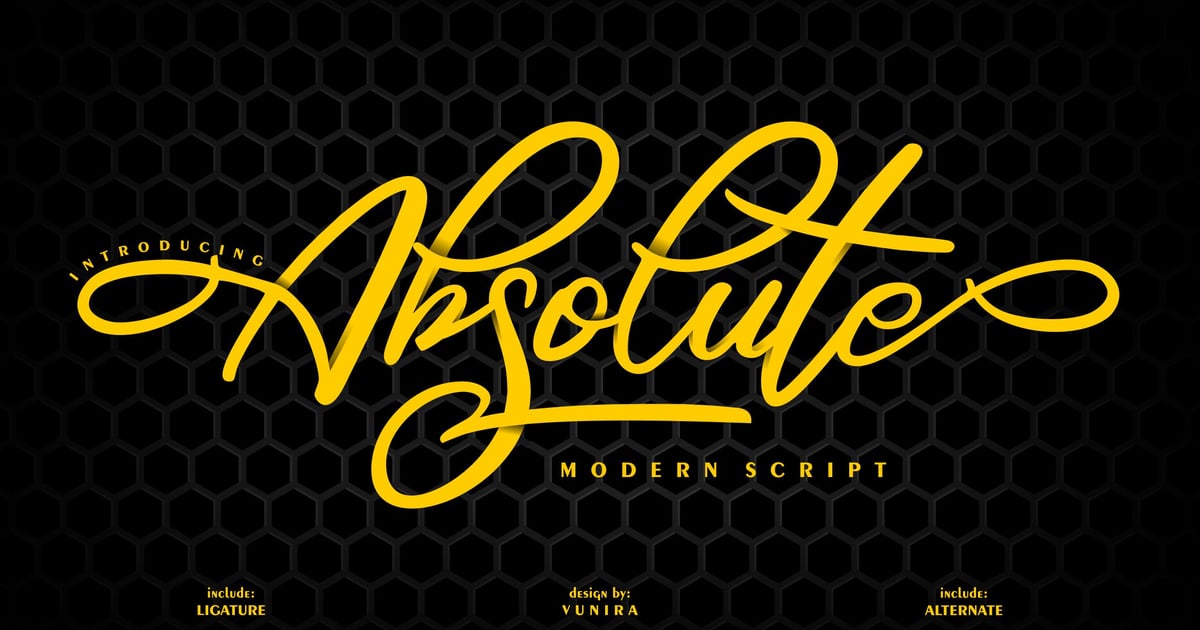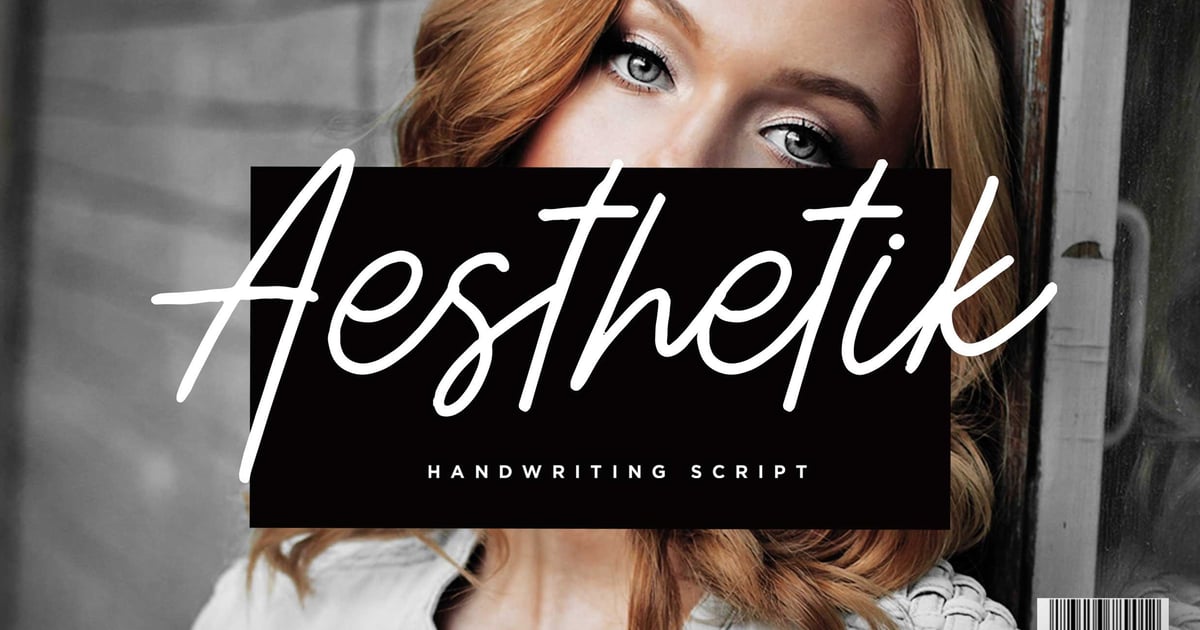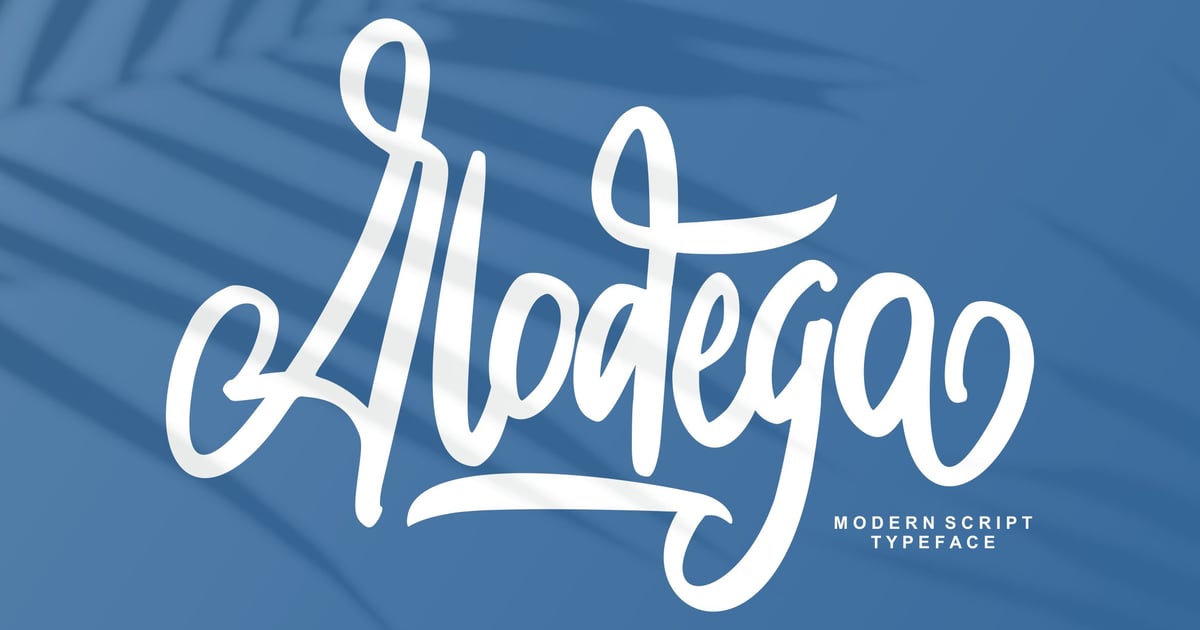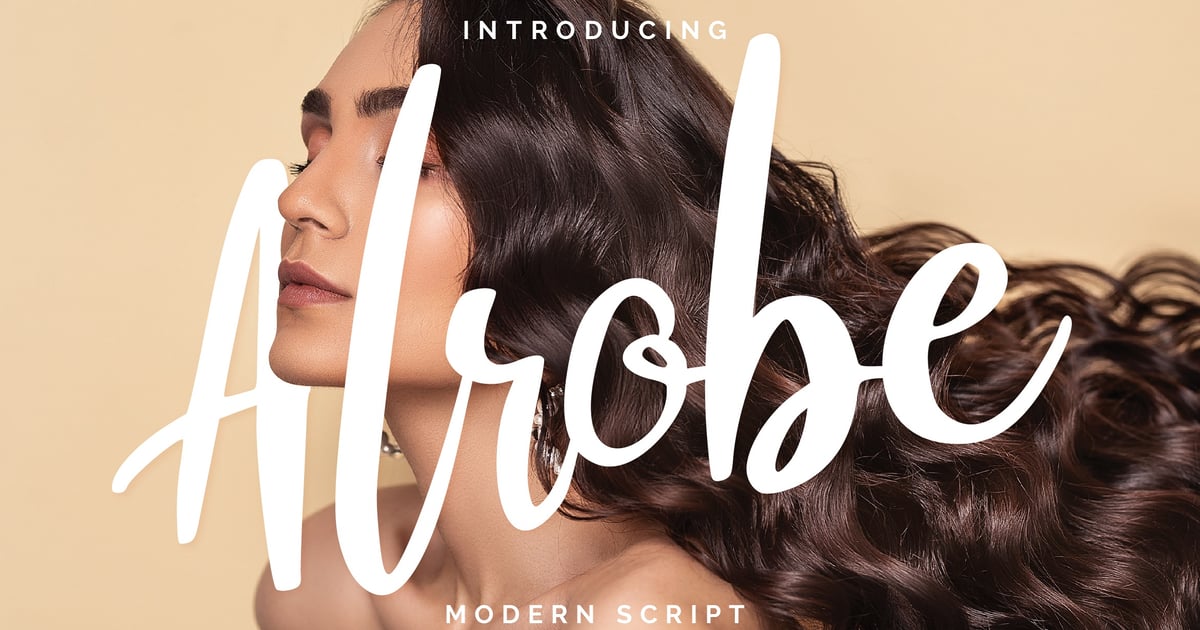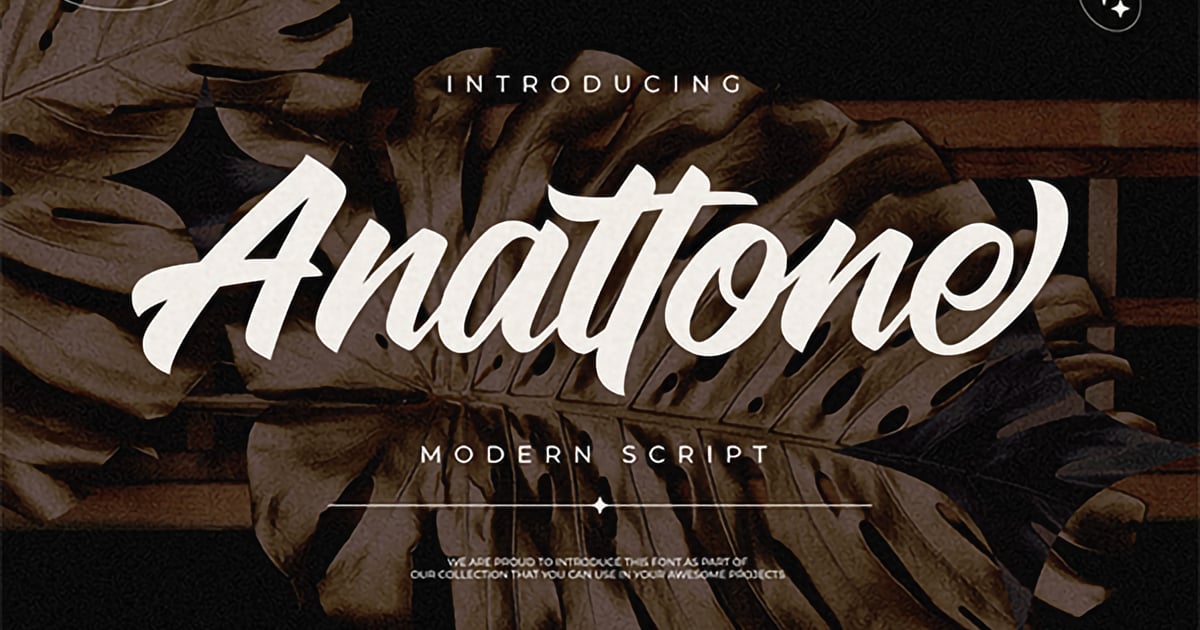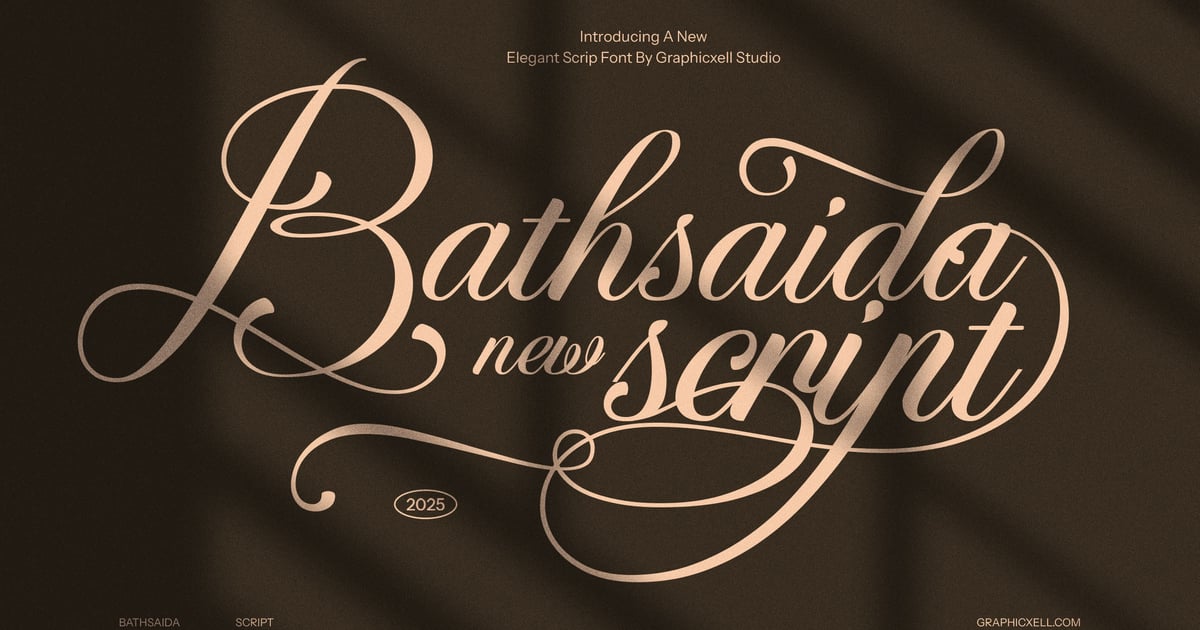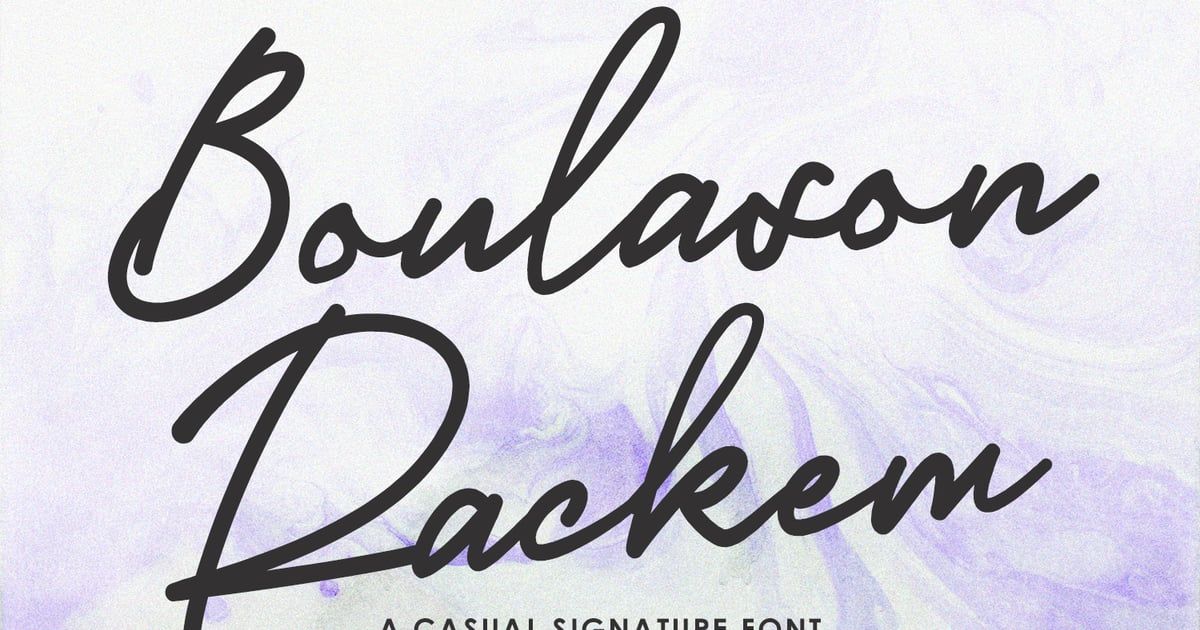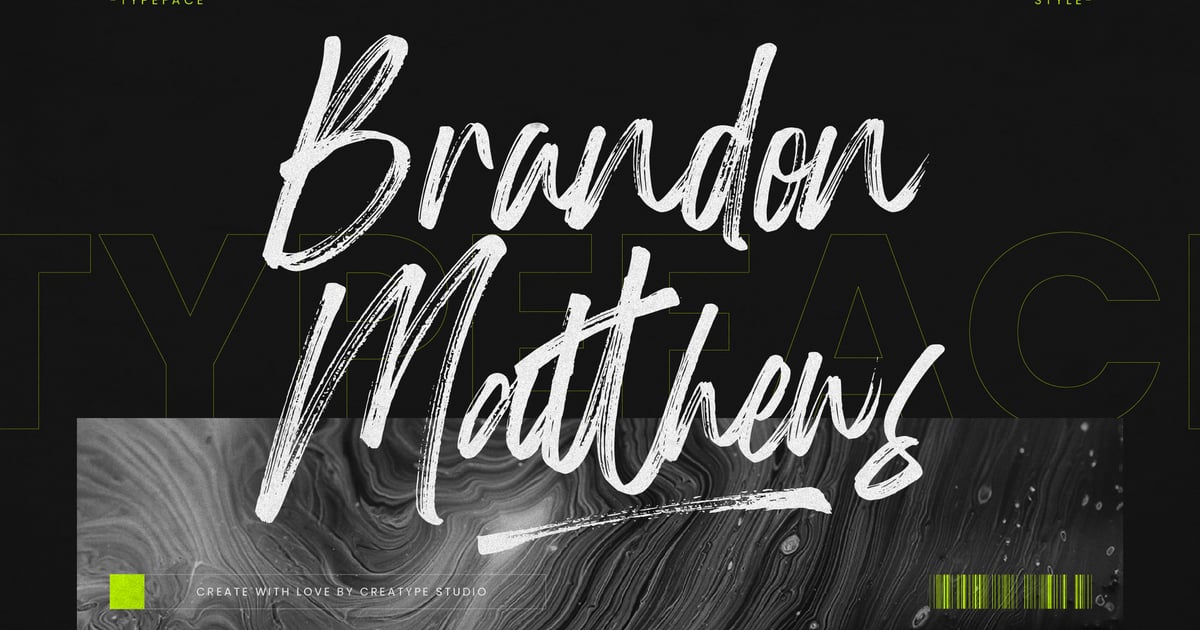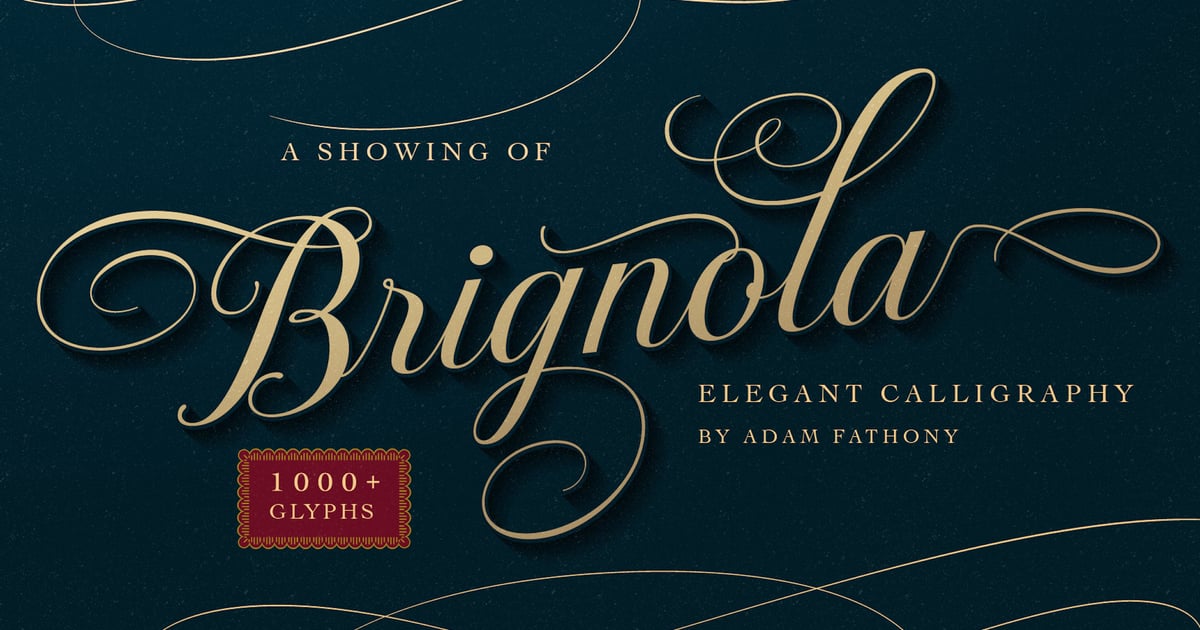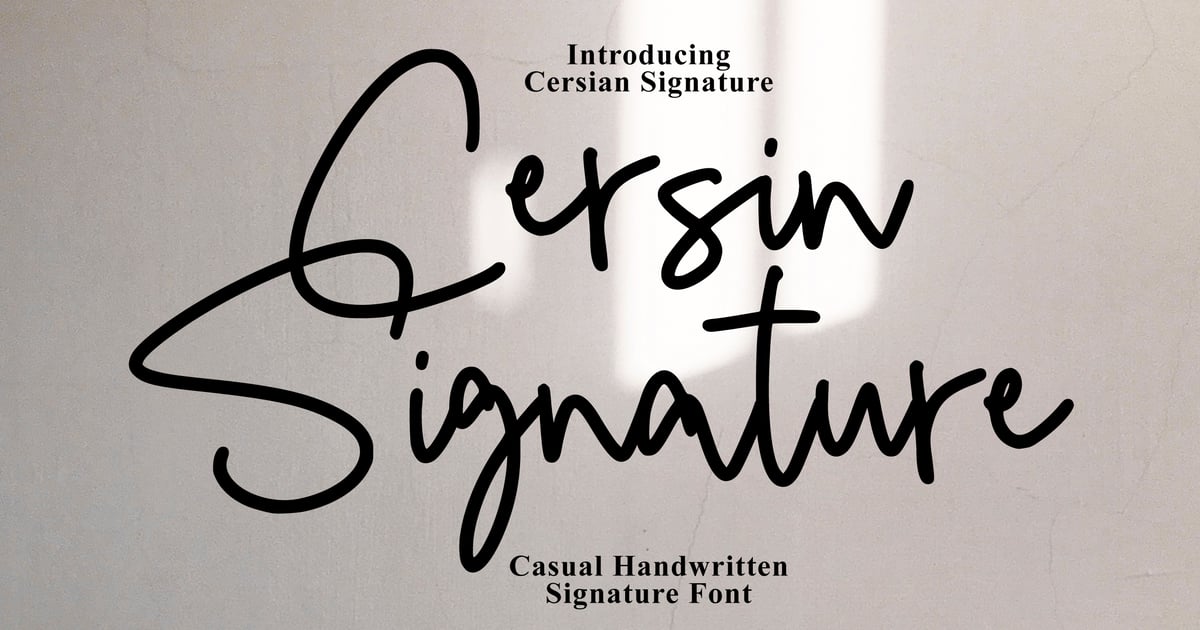
40+ Best Script Fonts of 2026 (Elegant, Casual & Calligraphy Styles)
There’s a reason your eye slows down the moment a script font shows up on a page — it stops reading like something a machine typed and starts reading like something a person wrote. That one shift, from printed to handwritten, is basically the entire appeal of script typography, and it hasn’t lost any of its pull heading into 2026.
This year’s crop spans everything from formal calligraphy built for wedding suites to loose, energetic brush lettering built for movement. Here’s the full rundown, organized by style so you can jump straight to what your project actually needs.
How I Chose These Fonts
Script font catalogs are enormous, and most of them are full of near-duplicates dressed up as different products. So before I started digging, I set four criteria and held every font on this list to them. Genuine craft in the letterforms and how the connecting strokes flow together is non-negotiable. Legibility despite the flourish matters more than how pretty a font looks in a mockup. Alternates and swashes that keep repeated letters from looking robotic separate a professional font from a novelty download. And enough range to work beyond a single word is what makes a font actually usable.
Elegant Calligraphy Fonts for Formal and Luxury Work
If you’ve ever searched for elegant script fonts for a wedding suite, a luxury product label, or anything else that needs to feel expensive, this is the category to start in. These calligraphy fonts lean into thick-and-thin contrast, dramatic swashes, and connections that mimic real pen strokes — the kind of detail that makes script fonts for weddings and invitations feel worth the price tag instead of like a free download.
Elegant Calligraphy Font Elegant Calligraphy
Elegant Calligraphy brings sophisticated, flowing letterforms that capture the timeless beauty of traditional penmanship. This typeface features graceful flourishes and refined curves that work beautifully for wedding stationery, luxury branding, and editorial headlines. Among script fonts, it stands out for its polished aesthetic that balances ornamental detail with readability. The design includes uppercase and lowercase characters, numerals, and punctuation marks to support a range of creative projects. Available in standard font formats, it’s ready to add a touch of refinement to both print and digital applications.
Marbelyn Walenstan | Elegant Calligraphy
Marbelyn Walenstan brings graceful sophistication to calligraphic design with its flowing letterforms and refined flourishes. The typeface balances classical elegance with contemporary sensibility, making it ideal for wedding invitations, luxury branding, editorial layouts, and formal stationery. Among script fonts, it distinguishes itself through carefully crafted letterforms that maintain legibility while delivering ornate beauty. The family includes uppercase and lowercase characters, numerals, and punctuation. Available in standard font formats, it supports extended language coverage for international design projects.
Melysa Malgin – Elegant Calligraphy Script Font
Melysa Malgin brings sophisticated calligraphic flourishes to wedding stationery, luxury branding, and editorial headlines. The letterforms feature graceful swashes and organic rhythm that evoke handwritten elegance without sacrificing legibility. Among script fonts, it stands out for its balanced approach to ornamentation—refined but never overwrought. The typeface works beautifully for greeting cards, fashion packaging, and social media graphics where a premium feel matters. Standard inclusions typically cover uppercase and lowercase alphabets, numerals, punctuation, and essential glyphs in both OTF and TTF formats for broad compatibility.
Delugia – Classic Elegant Calligraphy Script Font
Delugia - Classic Elegant Calligraphy Script Font
Delugia brings traditional calligraphic elegance to contemporary design projects. Its flowing letterforms draw inspiration from classic penmanship while maintaining excellent readability across applications. This typeface works beautifully for wedding stationery, luxury branding, editorial headlines, and sophisticated social media graphics. Among script fonts, it stands out for its refined strokes and balanced rhythm. The family includes uppercase and lowercase characters, numerals, and punctuation marks, delivered in both OTF and TTF formats for seamless integration into any creative workflow.
Ranzene – Calligraphy Fonts
Ranzene - Calligraphy Fonts
Ranzene brings romantic flourishes and elegant curves to any project requiring a sophisticated touch. This flowing typeface features graceful letterforms with traditional calligraphic sensibilities, making it particularly well-suited for wedding stationery, formal invitations, and luxury branding materials. Among script fonts, it stands out for its refined aesthetic and attention to detail in every character. The font includes uppercase and lowercase letters, numbers, and punctuation marks to support a wide range of design applications. Whether you’re crafting save-the-dates or developing an upscale brand identity, Ranzene delivers timeless appeal with contemporary versatility.
Brignola Elegant Calligraphy
Brignola Elegant Calligraphy brings sophisticated flourishes and graceful letterforms to wedding invitations, luxury branding, and editorial design. This refined typeface balances classical calligraphic tradition with contemporary polish, featuring flowing connections and delicate stroke variations that convey elegance without excess. Among script fonts, it stands out for its restrained beauty and professional versatility. The family includes both script and decorative elegant variants, offering designers flexibility for pairing display headlines with body text. Perfect for high-end packaging, fashion projects, and refined social media graphics where distinction matters.